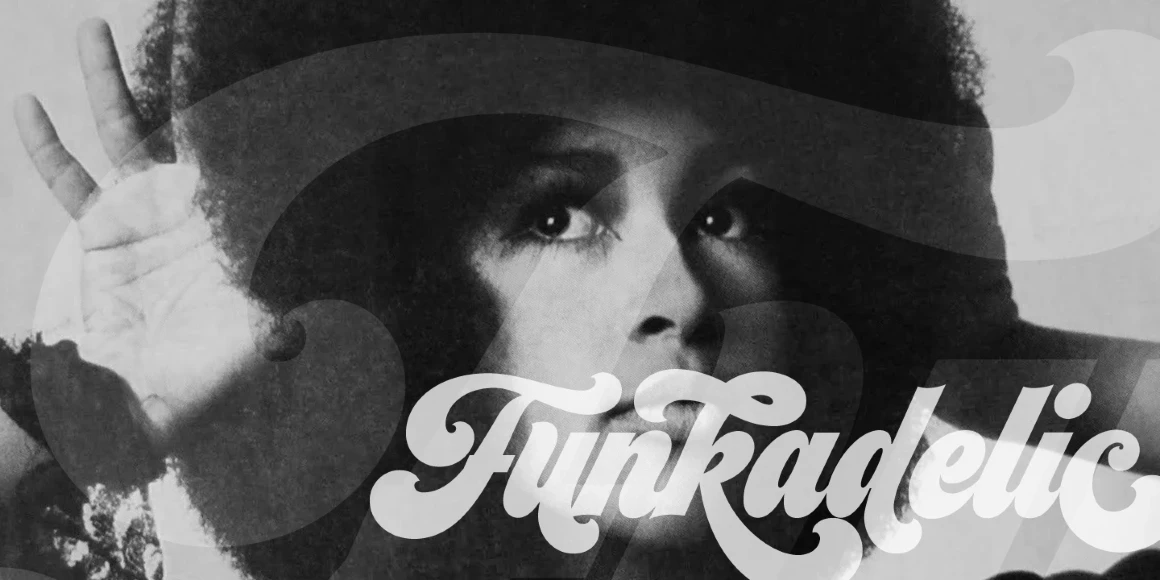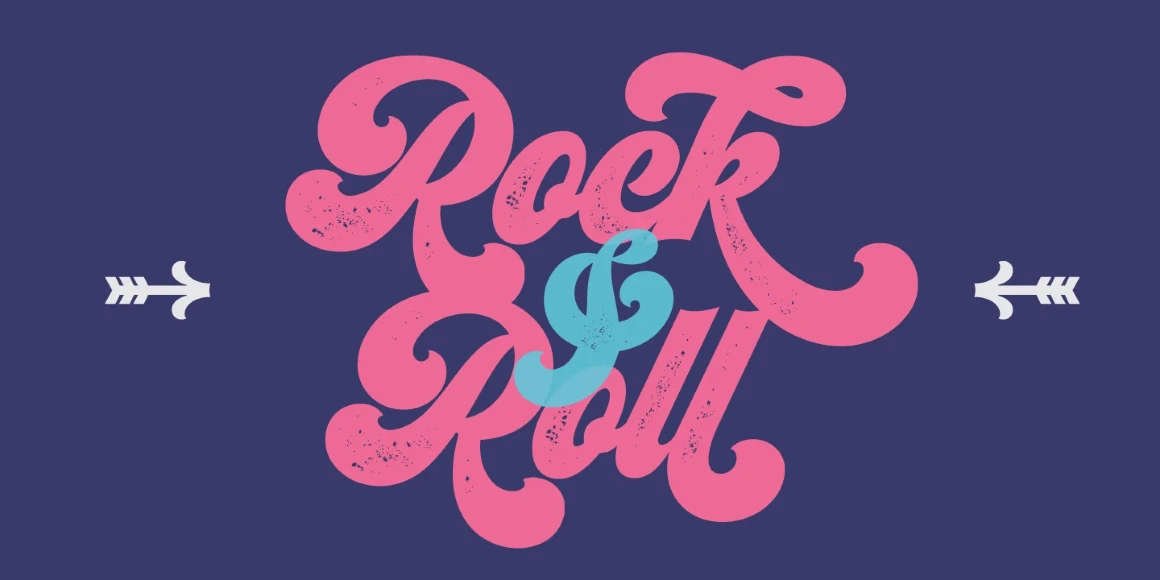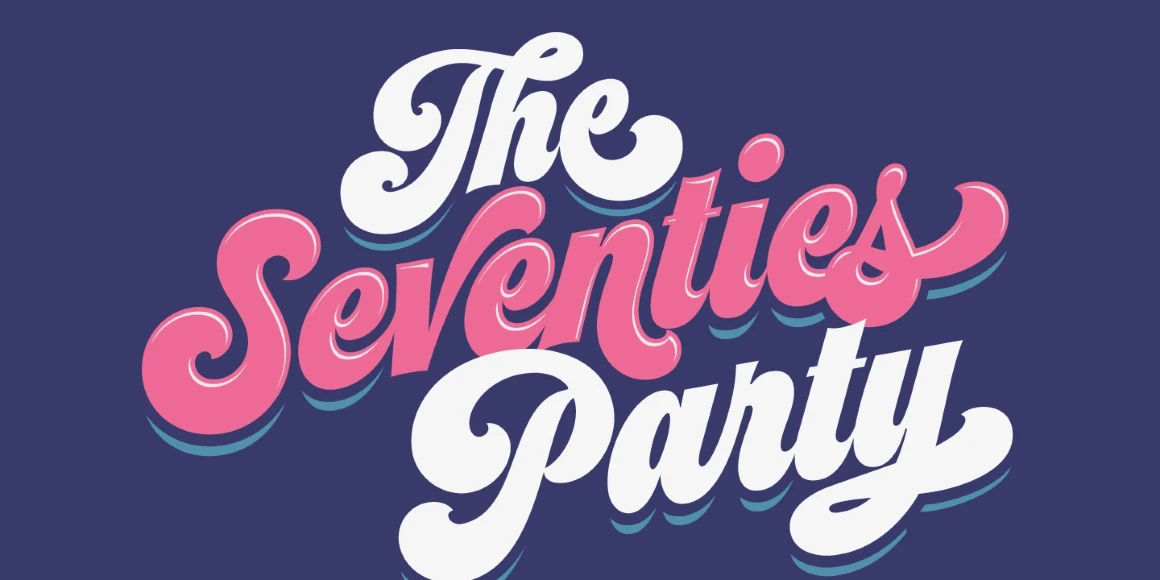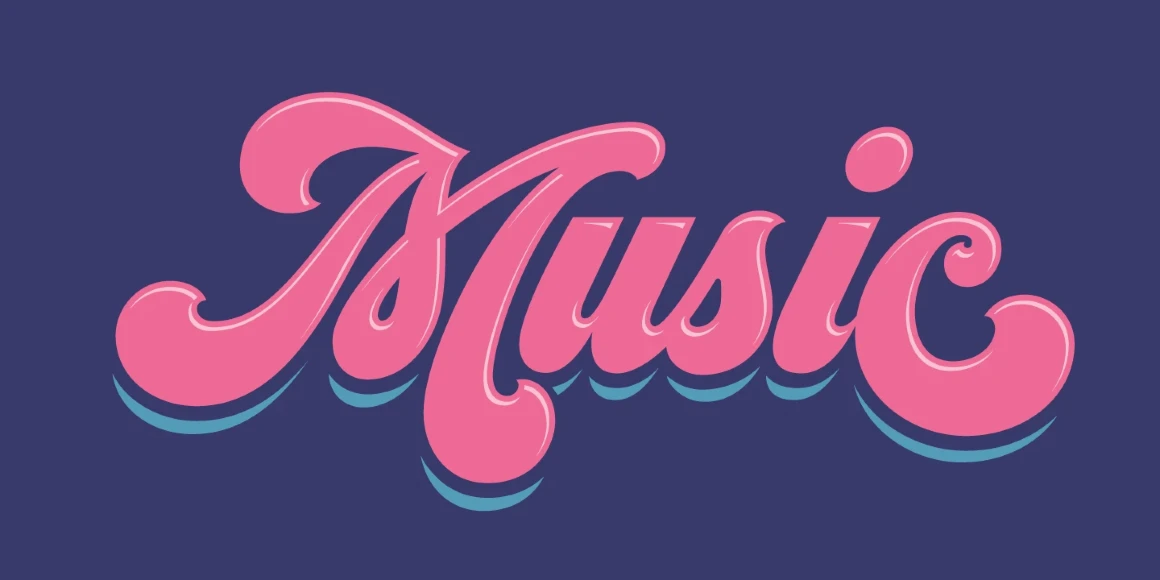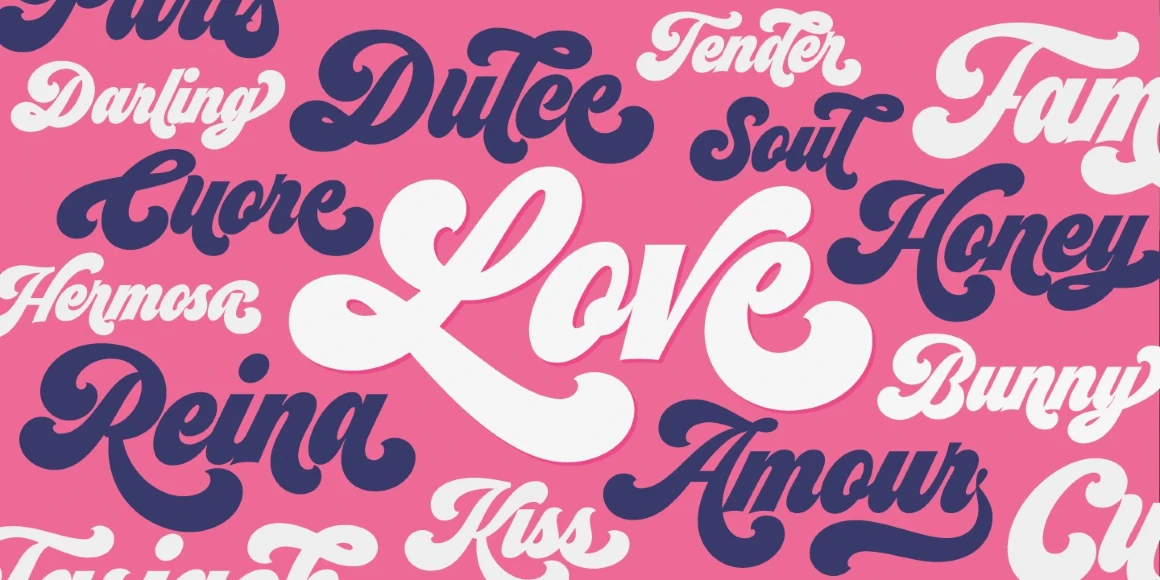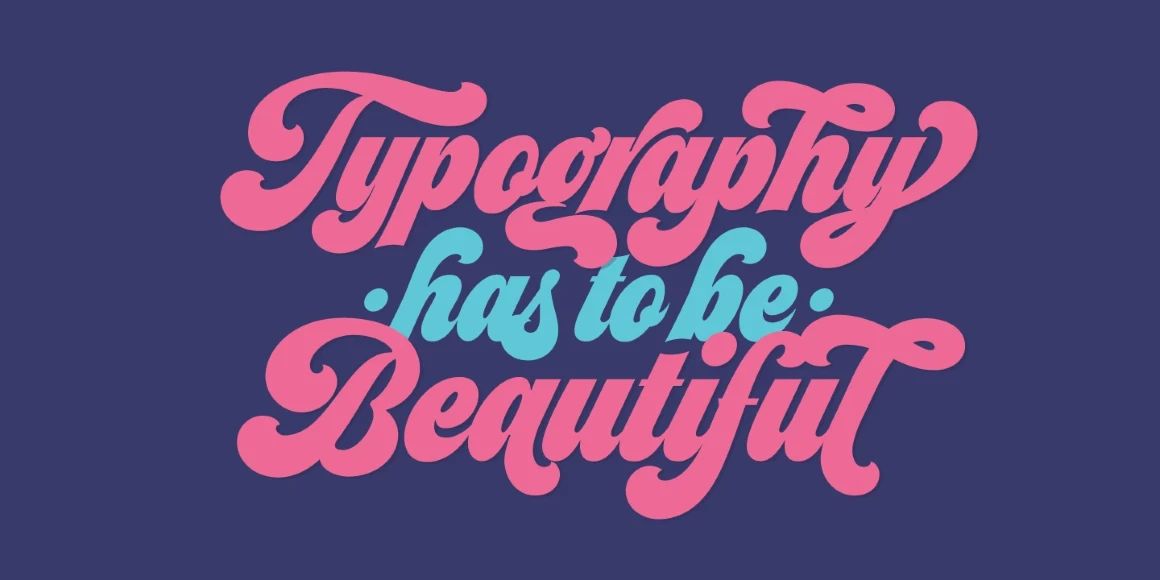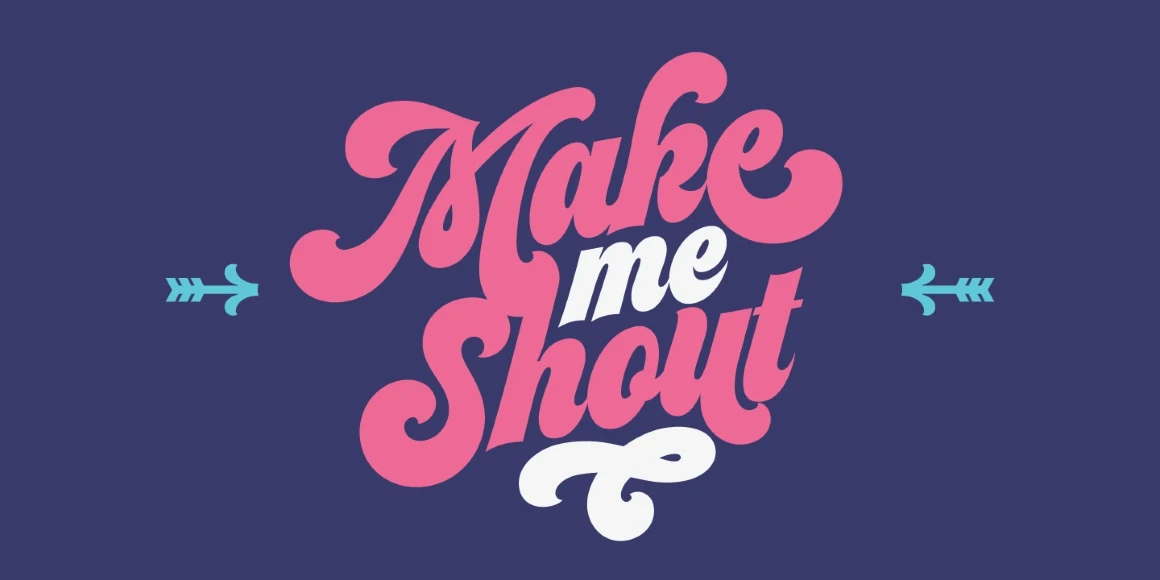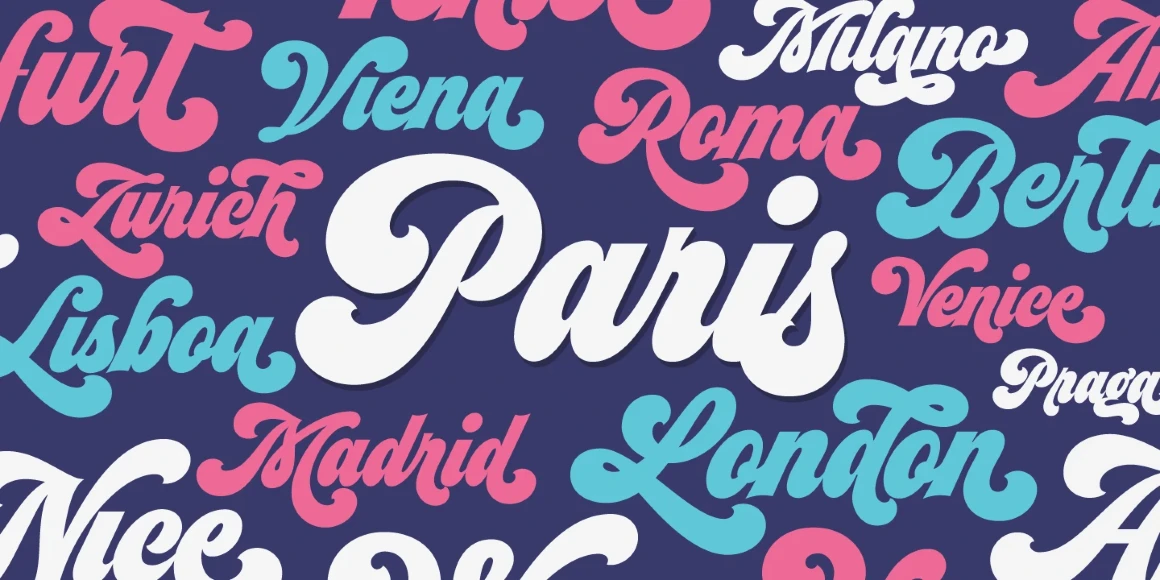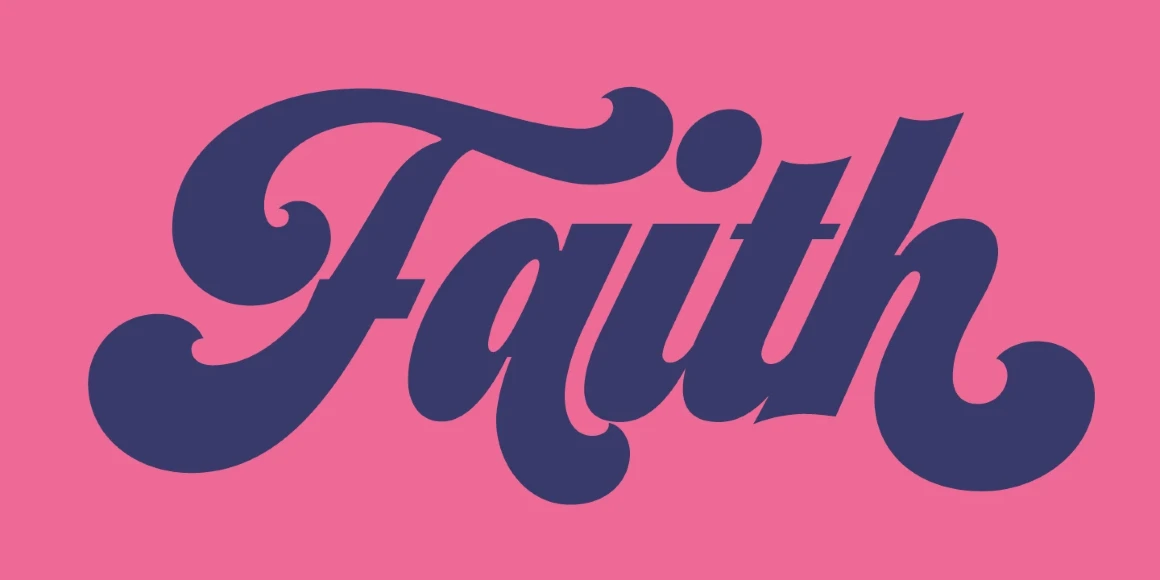
Seventies
From Sproviero Type
Seventies is a bold, curvy script channeling the free spirit of 1970s lettering design. With lush, rolling forms, ultra-thick strokes, and a brushy rhythm, it gives any project a groovy, high-impact look. A nod to something vintage with a playful twist, it’s perfect as the typographic link in any brand identity system. Think cross-media promotion, including titles, posters, packaging, brochures, and advertisements. Whether you’re aiming for retro flair or good vibes, Seventies brings the funk!
Designed by Maximiliano Sproviero
Seventies Printed
Seventies Shade
Seventies Shade Solo
Seventies Shine
Seventies Shine Solo
Seventies Regular